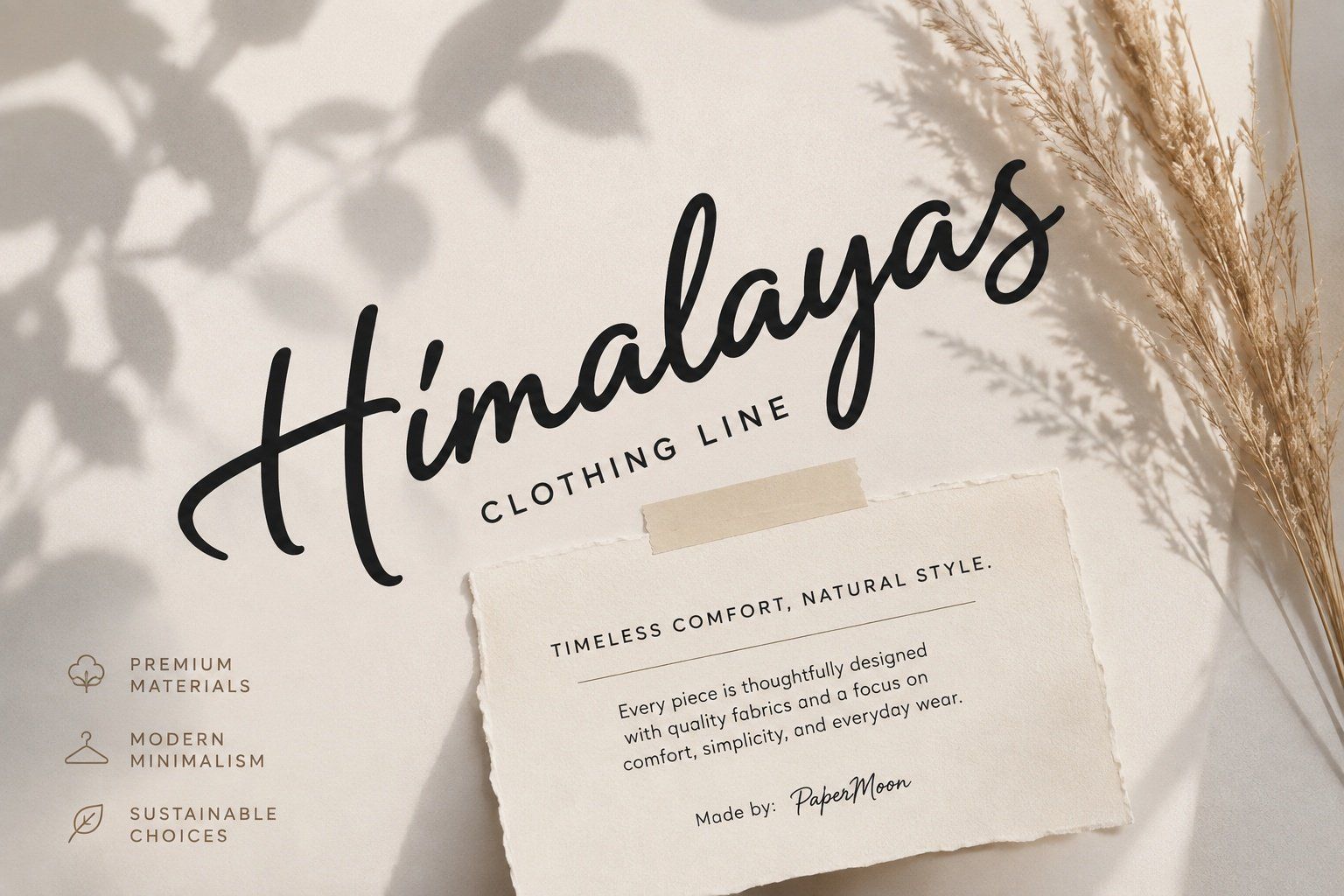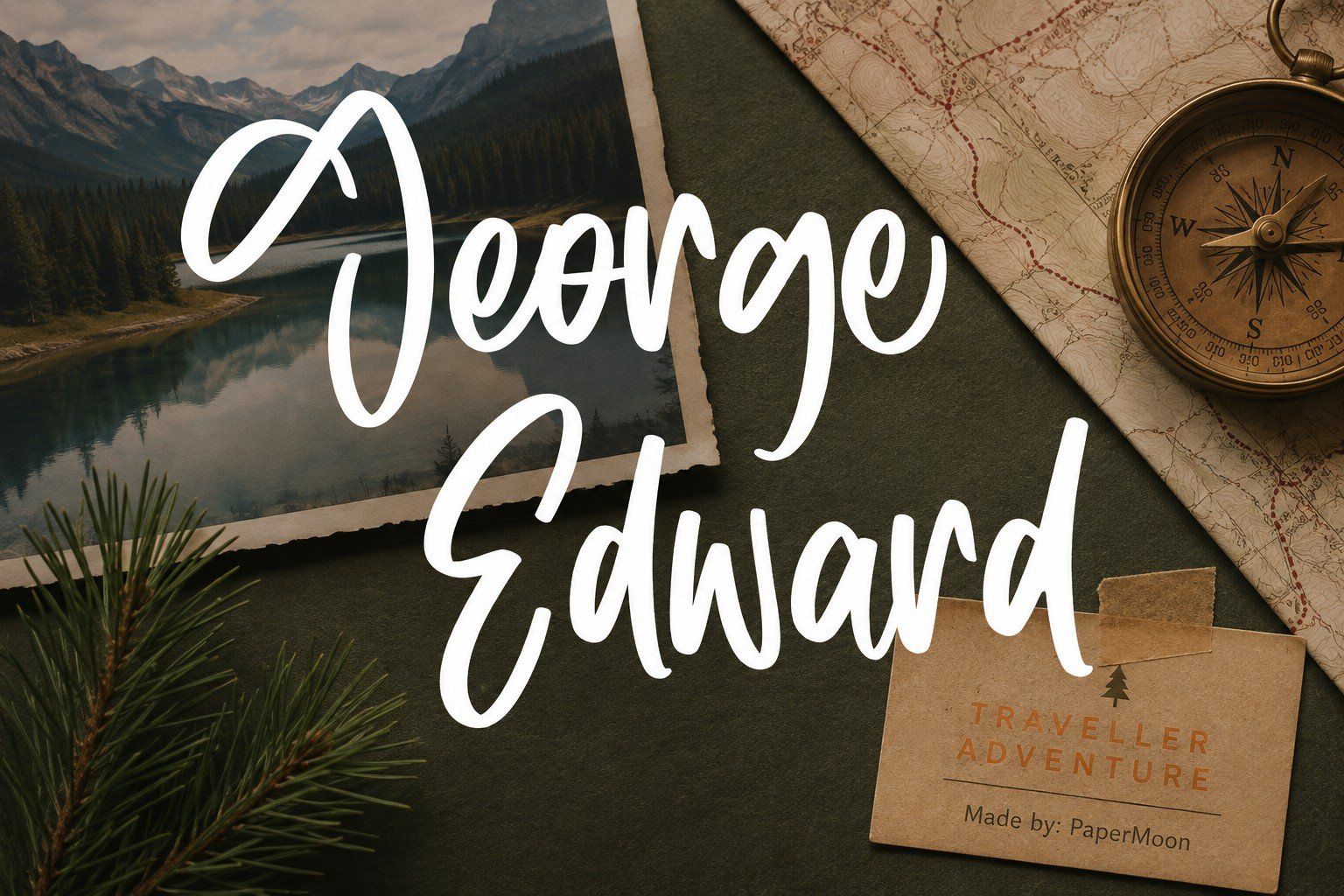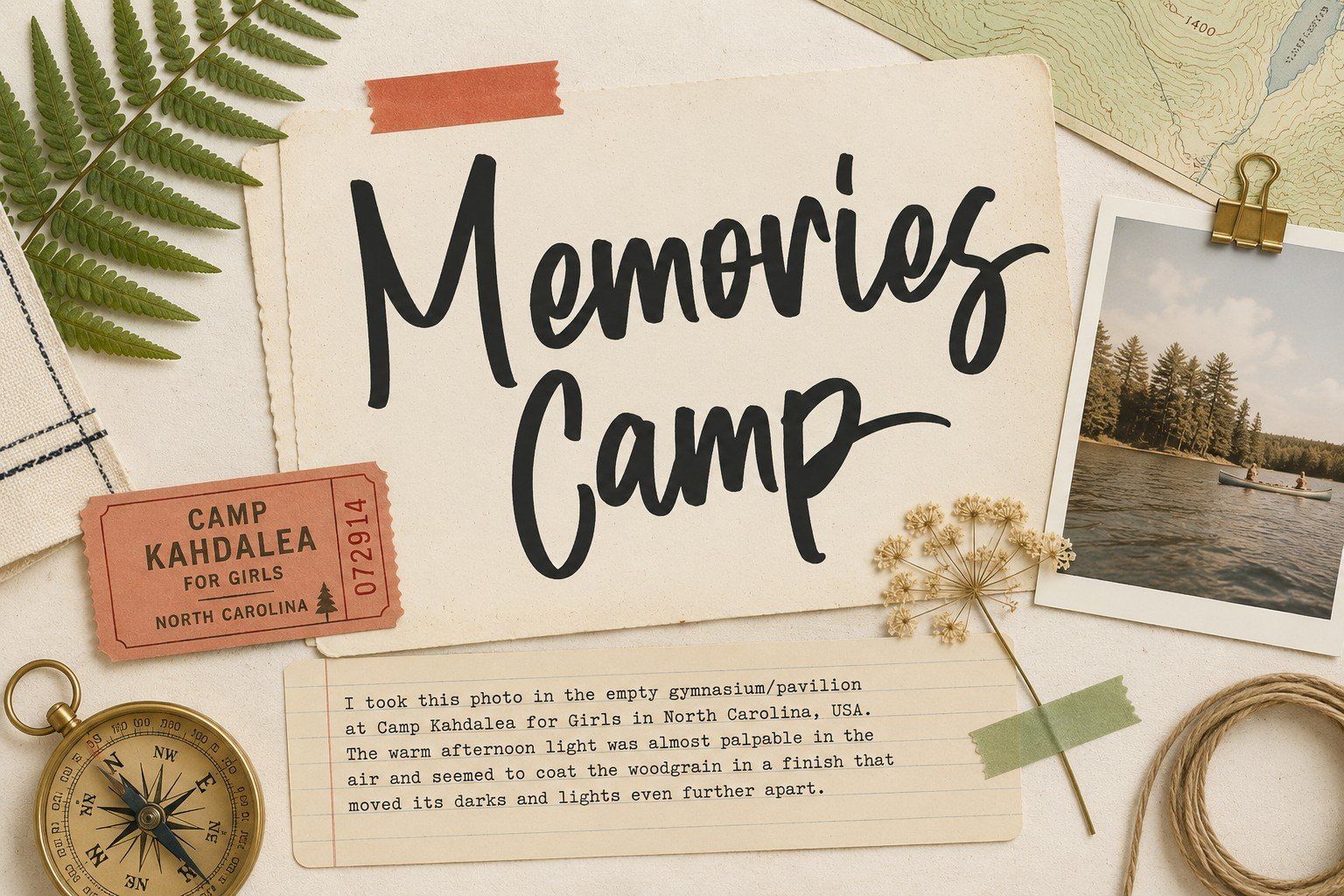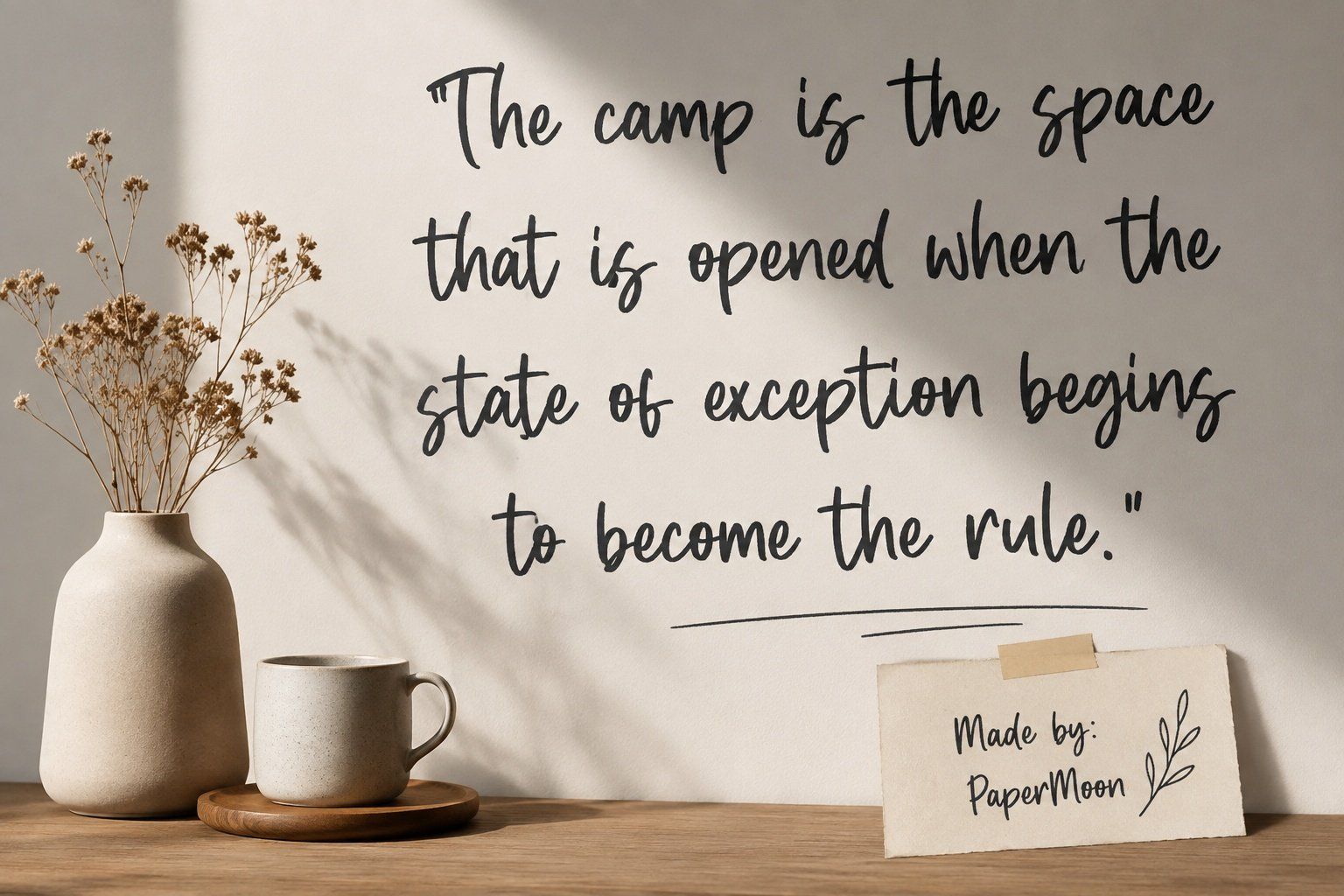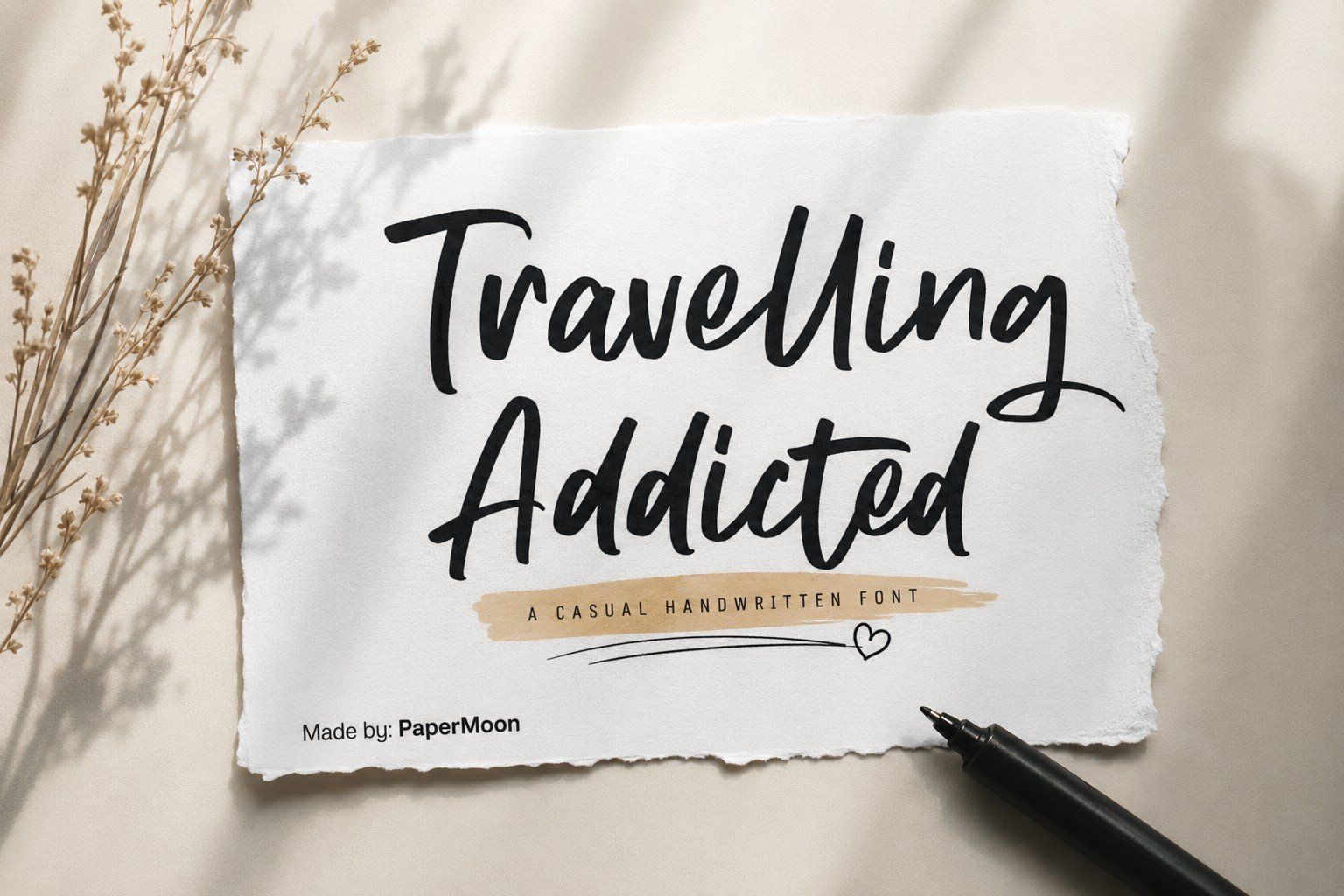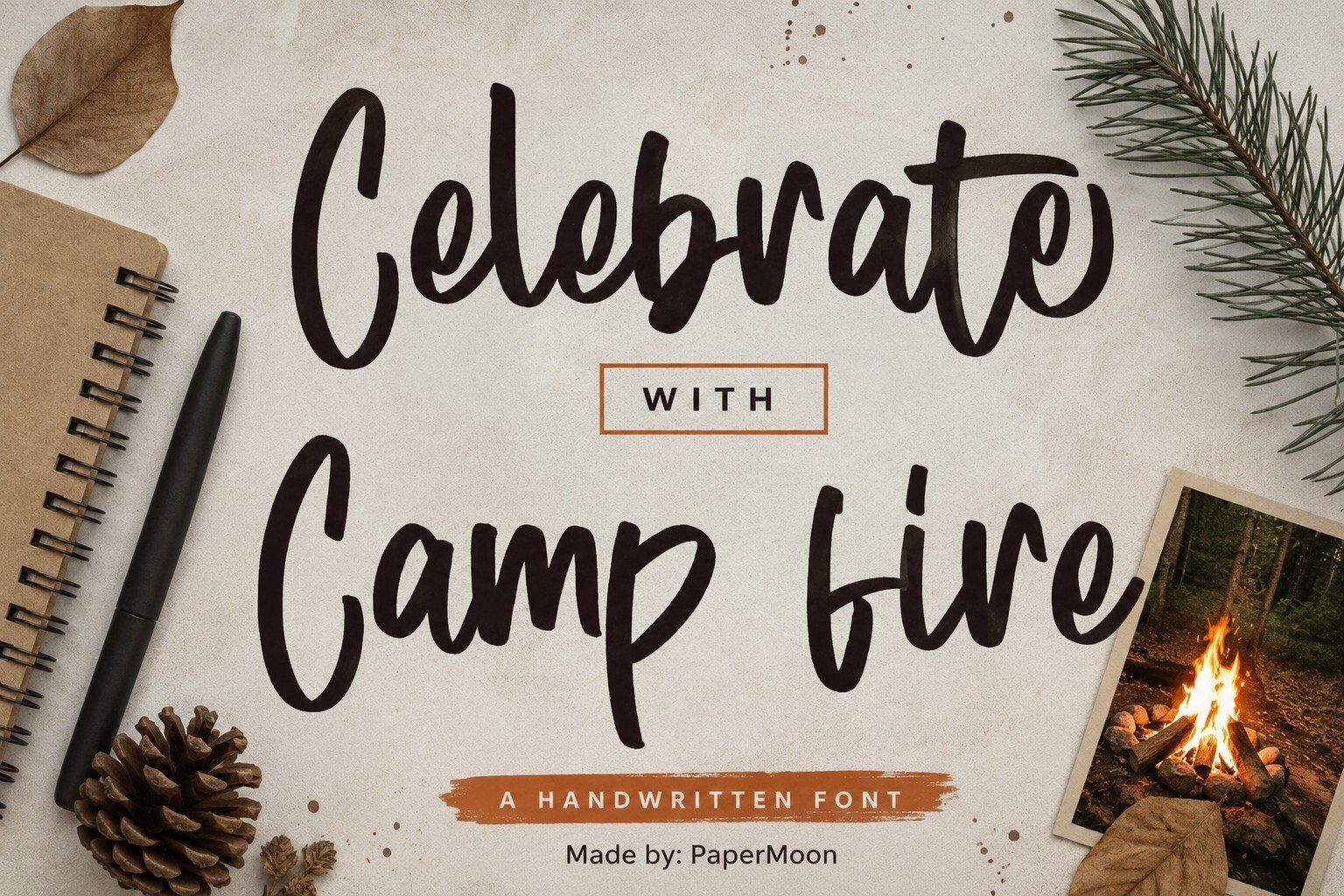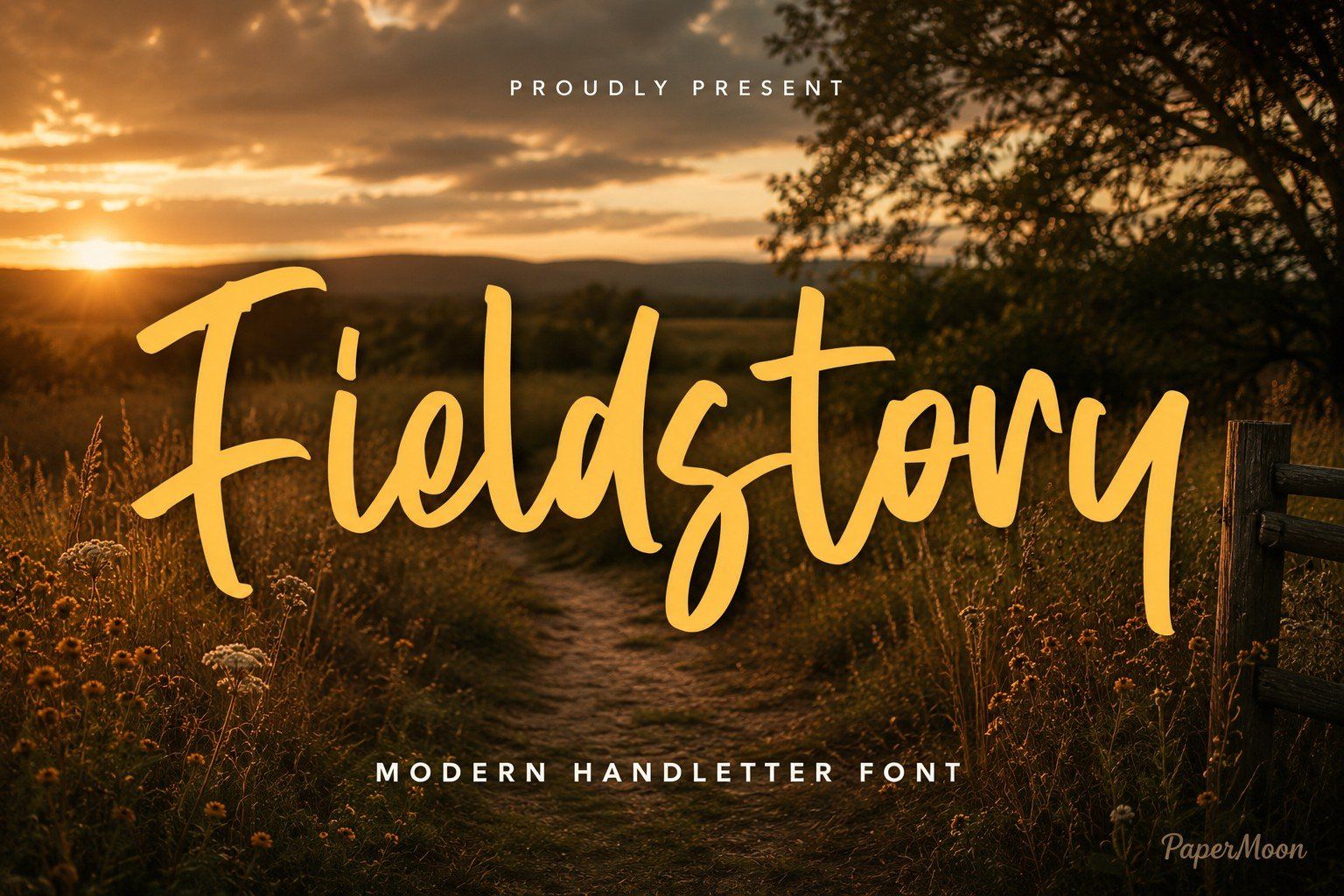
FieldStory is an elegant modern handwritten font designed to bring refined, readable personality to wedding stationery, branding, and social graphics.
Combining traditional elegance with contemporary clean minimalism, FieldStory uses smooth, sleek strokes, subtle curves, precise details, and graceful thick-and-thin contrast. The result is a polished hand-lettered voice that adds warmth and sophistication while keeping short text clear and composed.
• Wedding invitations and stationery
• Logos, wordmarks, and branding
• Posters and display lettering
• Ligatures and stylistic alternatives
• Multilingual support with accent characters
• Symbols, numbers, and punctuation
Add a smooth, contemporary handwritten finish to your next design with FieldStory.